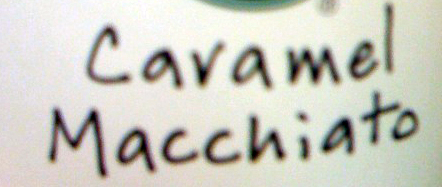
It's tough to find decent looking handwriting fonts, but my friend sent me a picture of the Starbucks cup he was holding. I thought I totally knew what this font was, but upon looking through my library, I don't. I've tried whatthefont.com to no avail.
Any ideas?
bro that looks like real handwriting, not a font! haha but idk, i use dafont.com, they have a whole section for handwriting
If you're looking for an exact match, it's not the same. But if you're looking for a font with a similar feel, consider AJHand suggested by WhatTheFont.com.